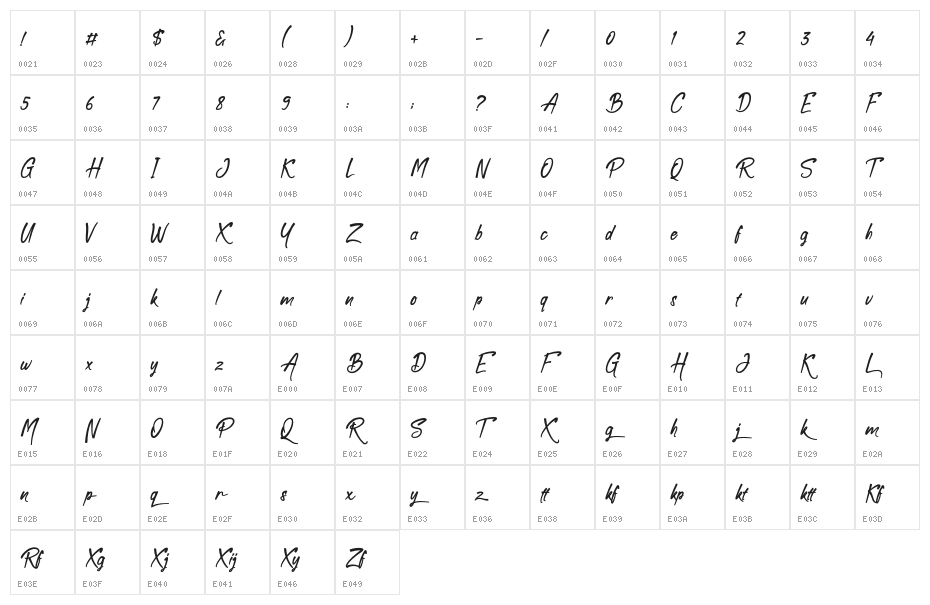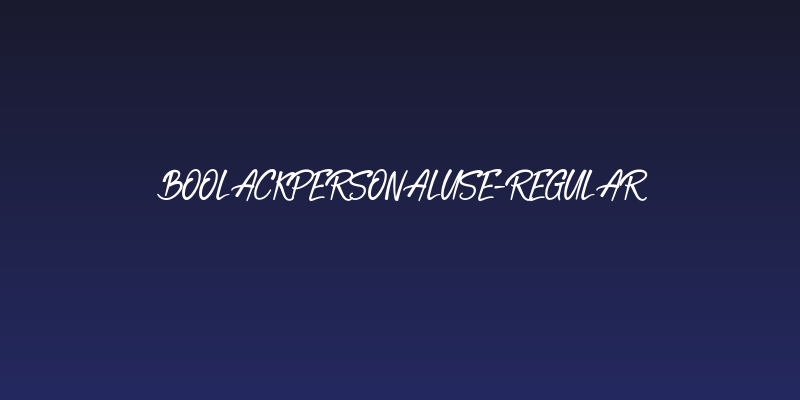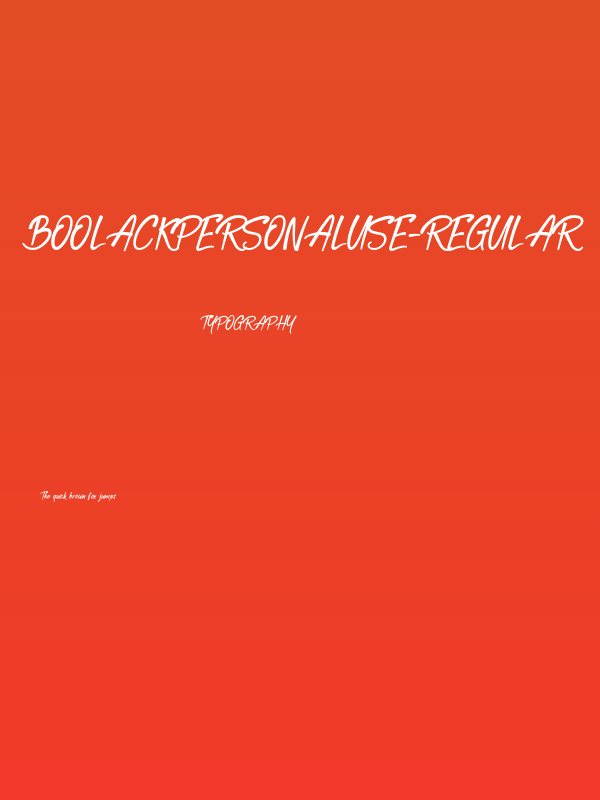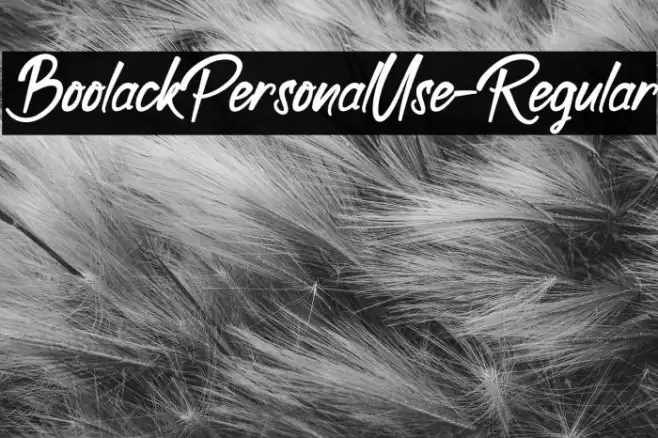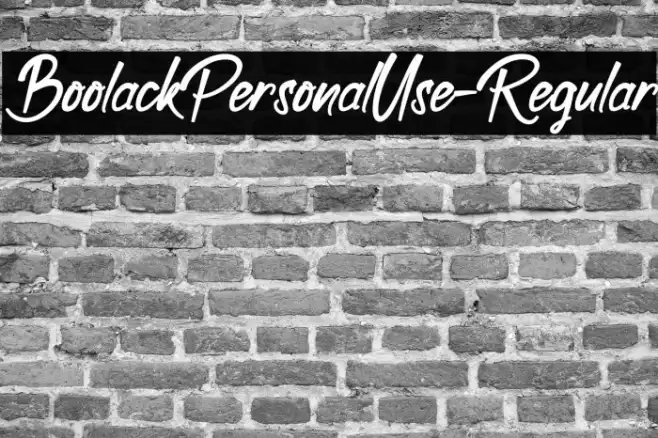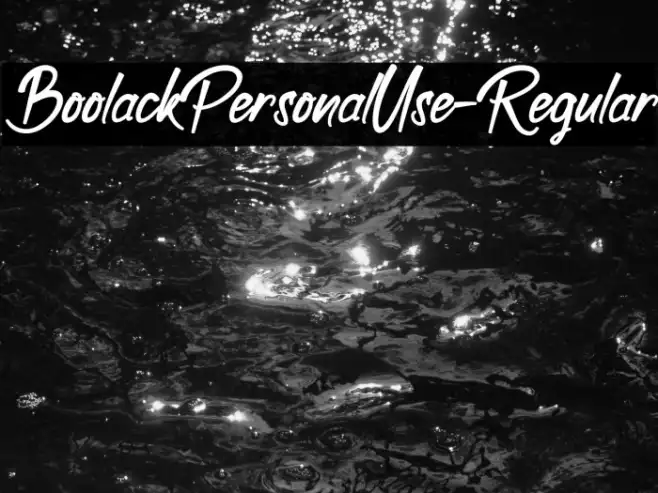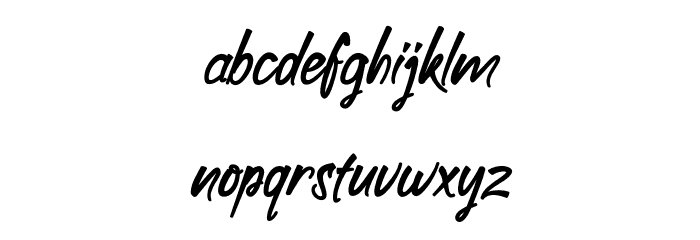
BoolackPersonalUse-Regular Font
BoolackPersonalUse-Regular Description
This font features a flowing, cursive style with elegant, sweeping strokes that give it a handwritten appearance. The uppercase letters are bold and prominent, while the lowercase letters maintain a consistent, smooth flow. The numerals and special characters are designed to complement the script style, adding a touch of sophistication. The overall look is dynamic and expressive, making it suitable for creative and artistic projects. The font's design is both stylish and versatile, offering a modern twist on classic script typography.